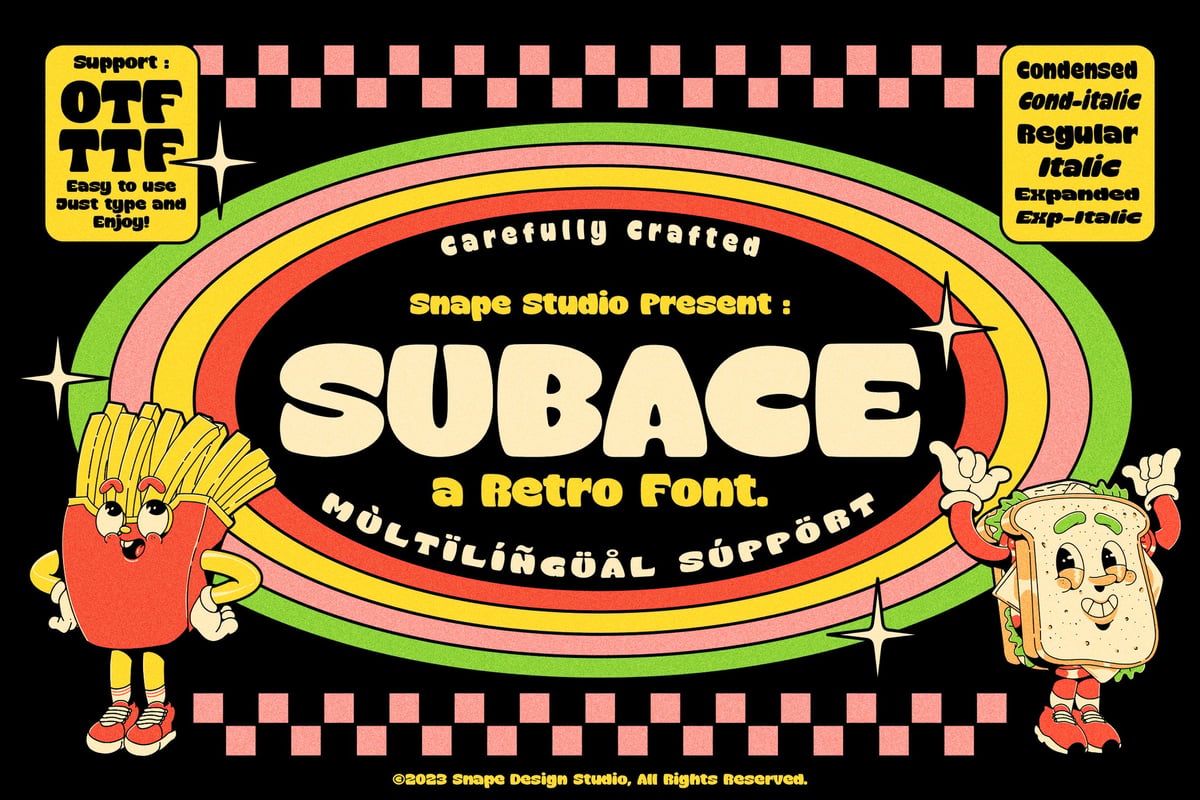
Subace - Retro Font
Transport your designs back in time with Subace, a retro rounded font that perfectly captures mid-20th century charm. This carefully crafted typeface seamlessly blends vintage nostalgia with contemporary design aesthetics. Featuring smooth curves, soft edges, and a touch of playful elegance, Subace evokes classic sophistication while maintaining modern versatility. Perfect for designers and creatives seeking to infuse their projects with timeless appeal and retro character. FEATURES: Uppercase L...